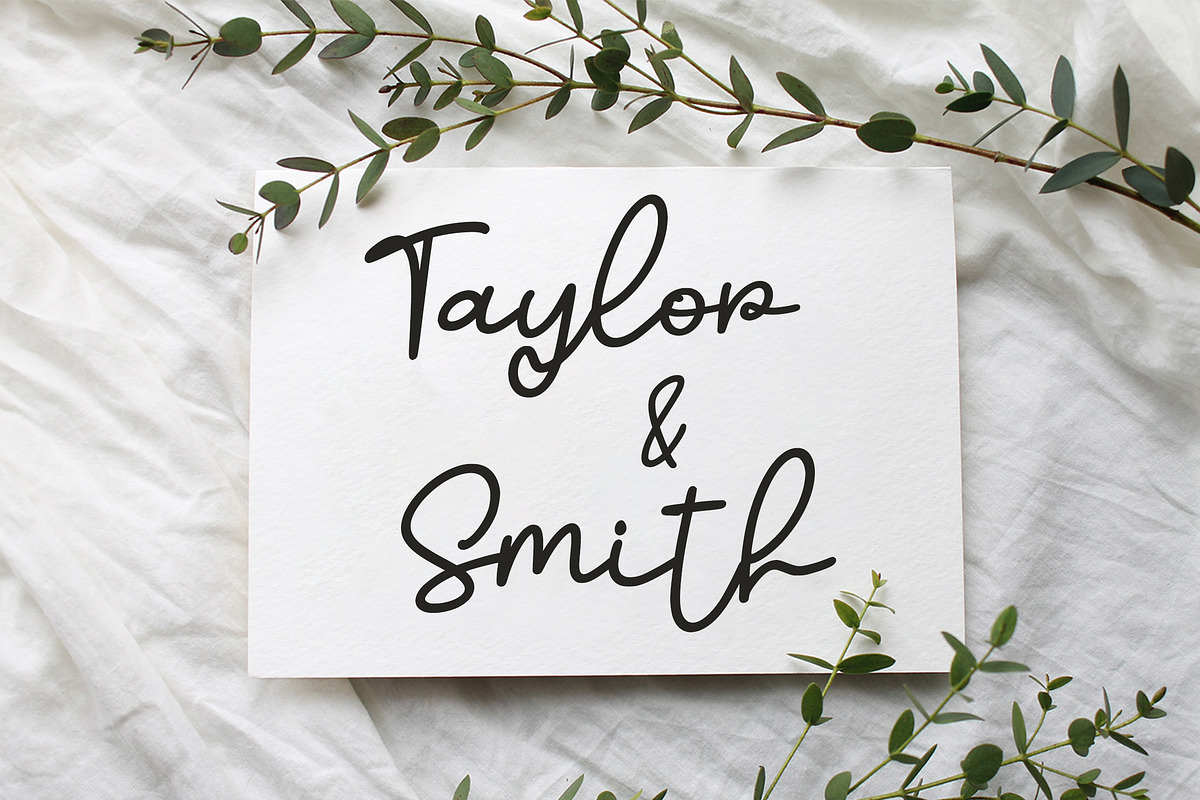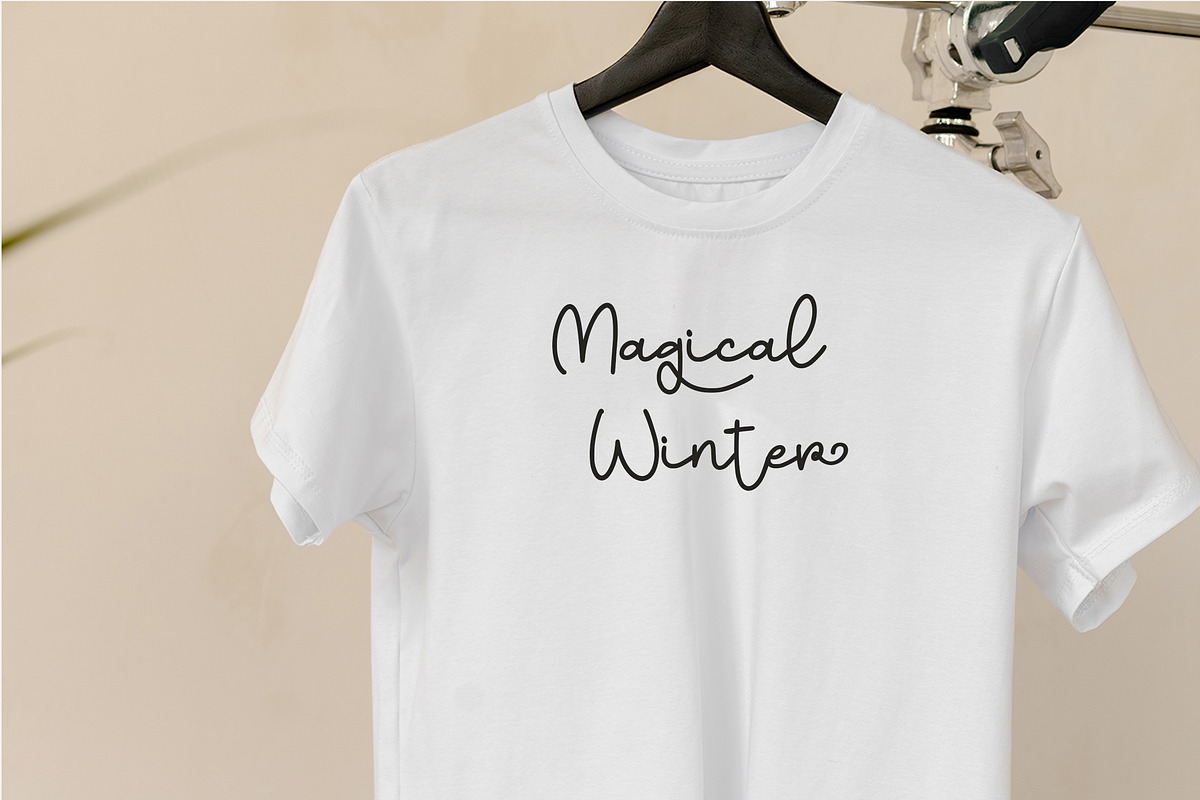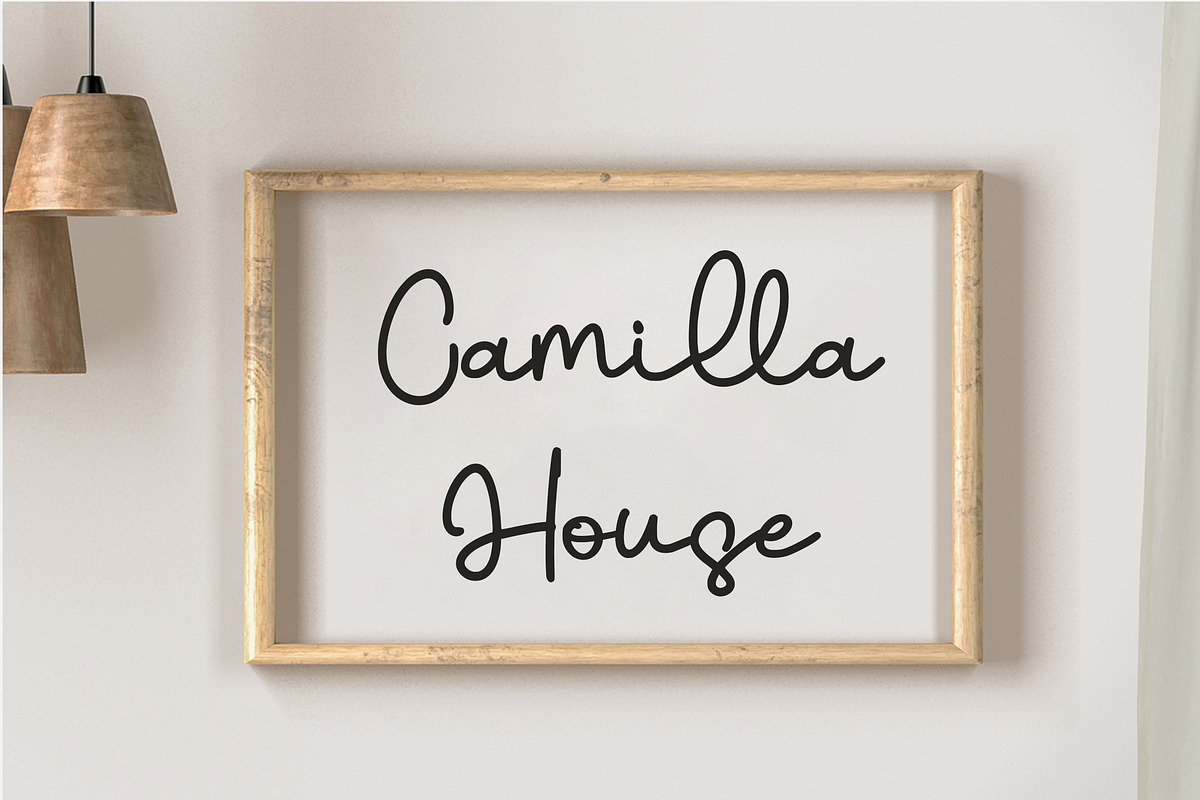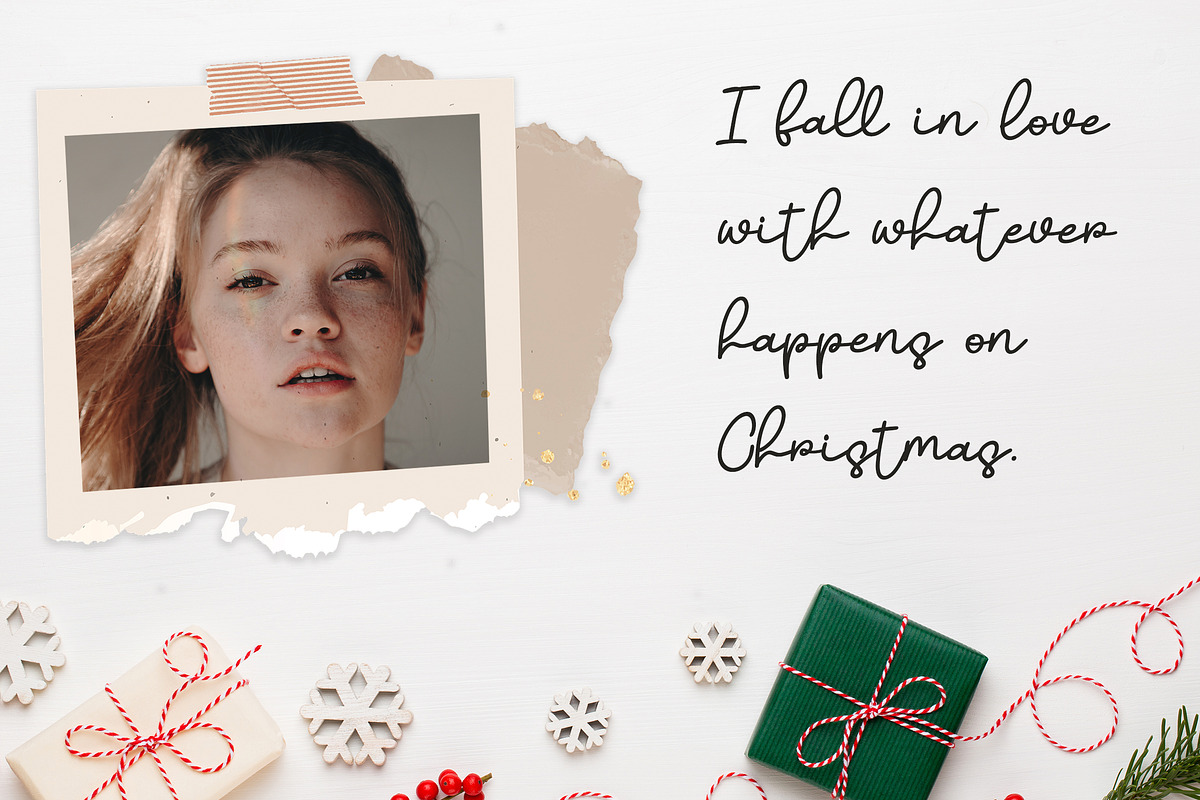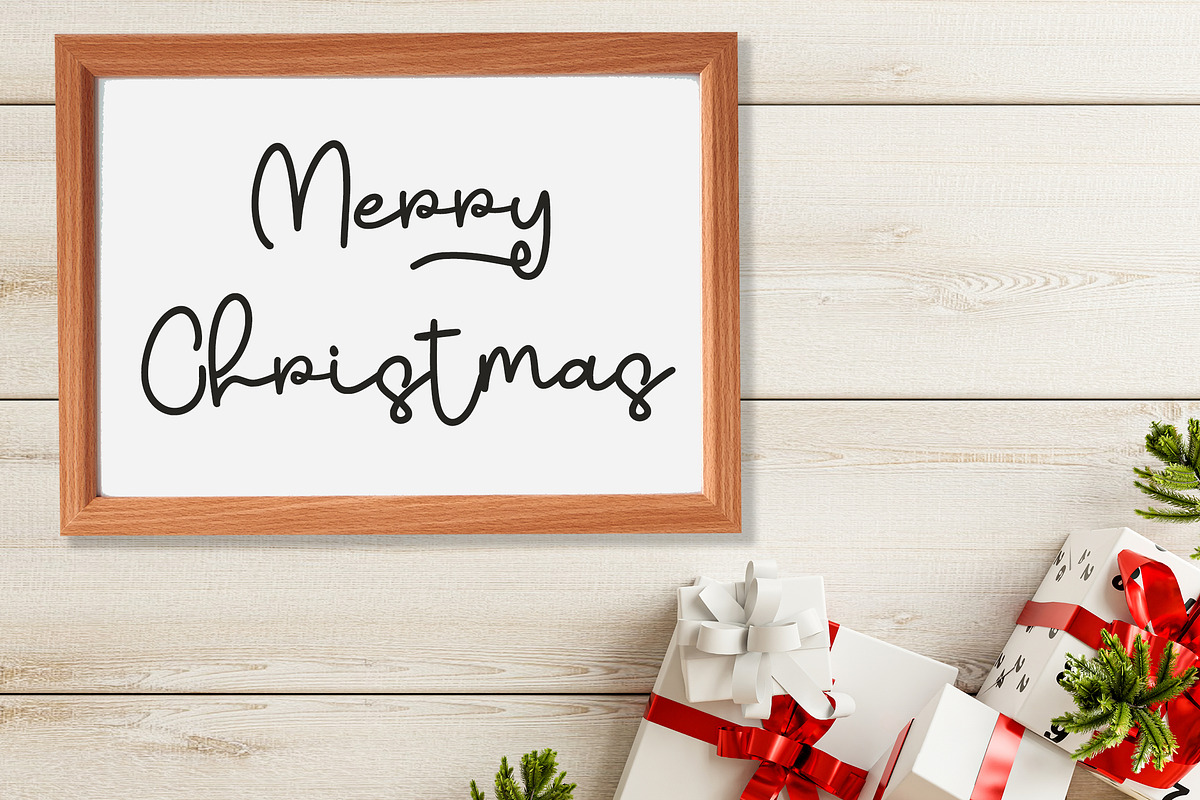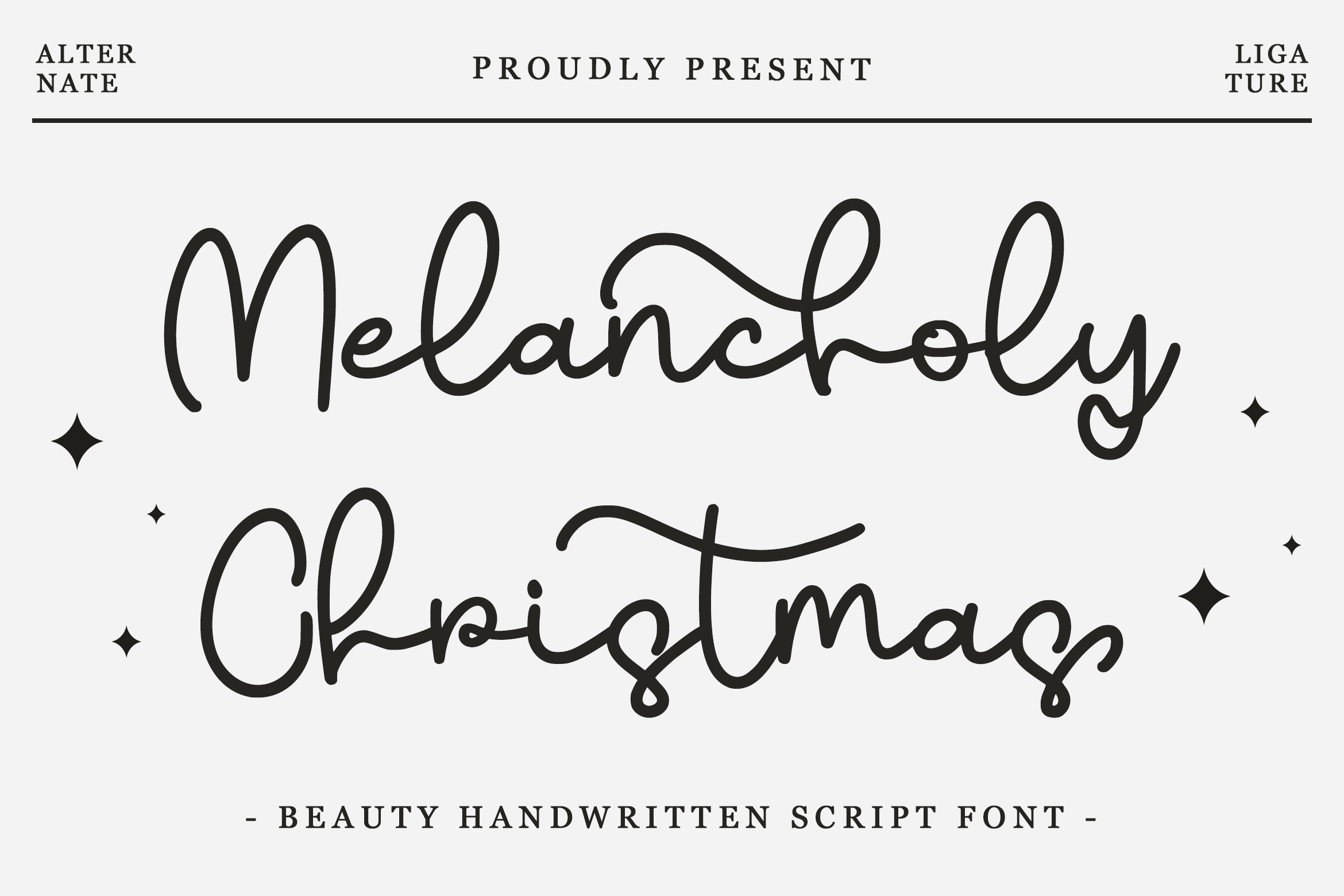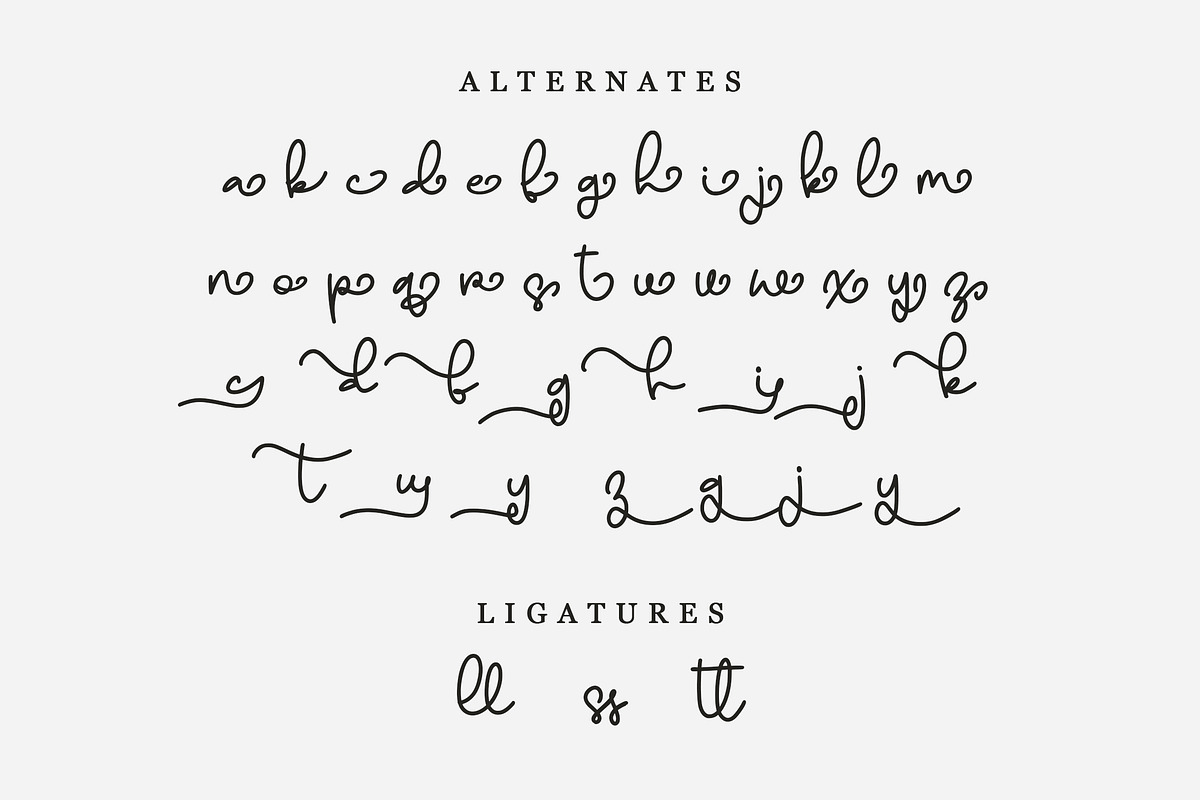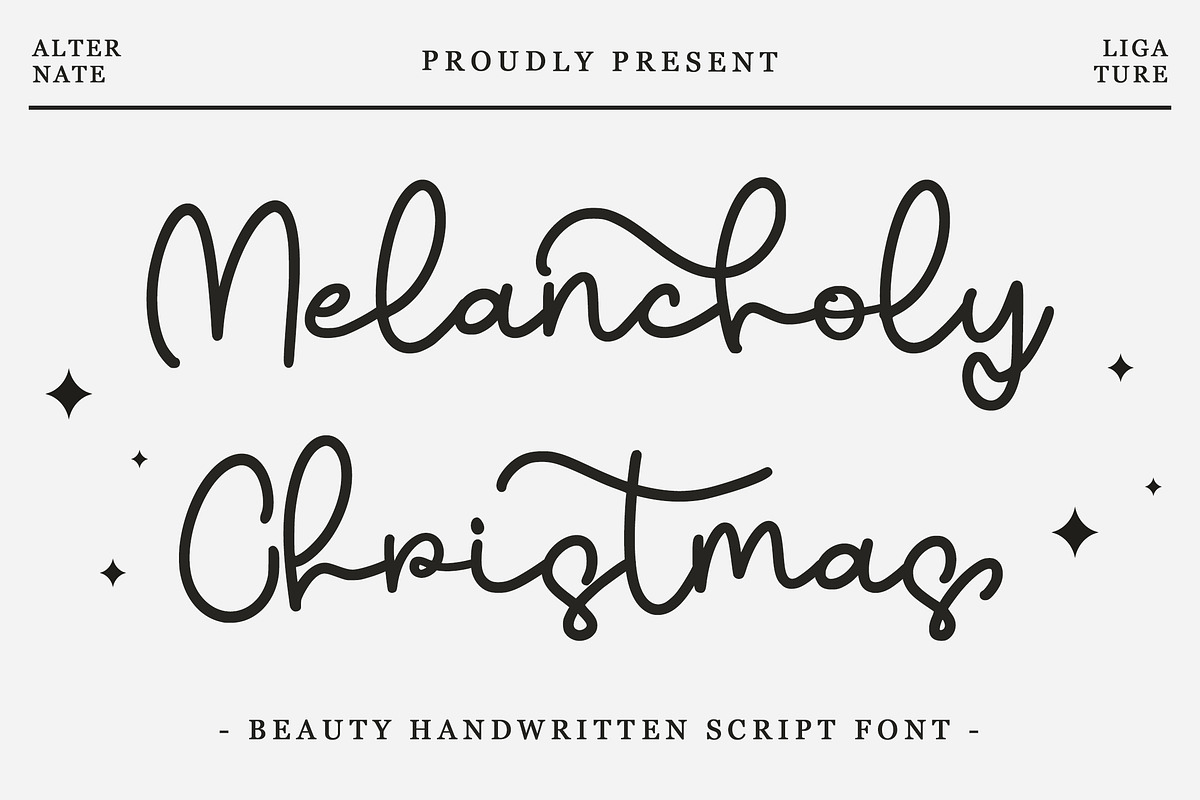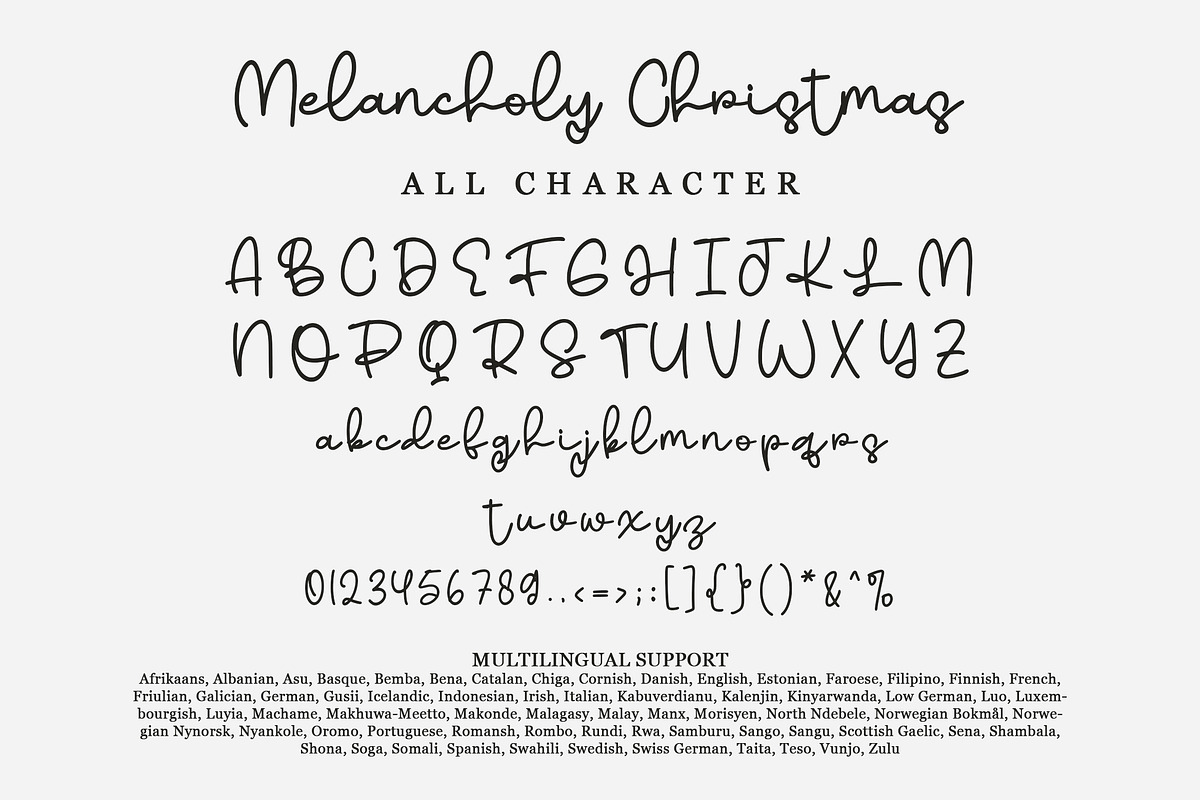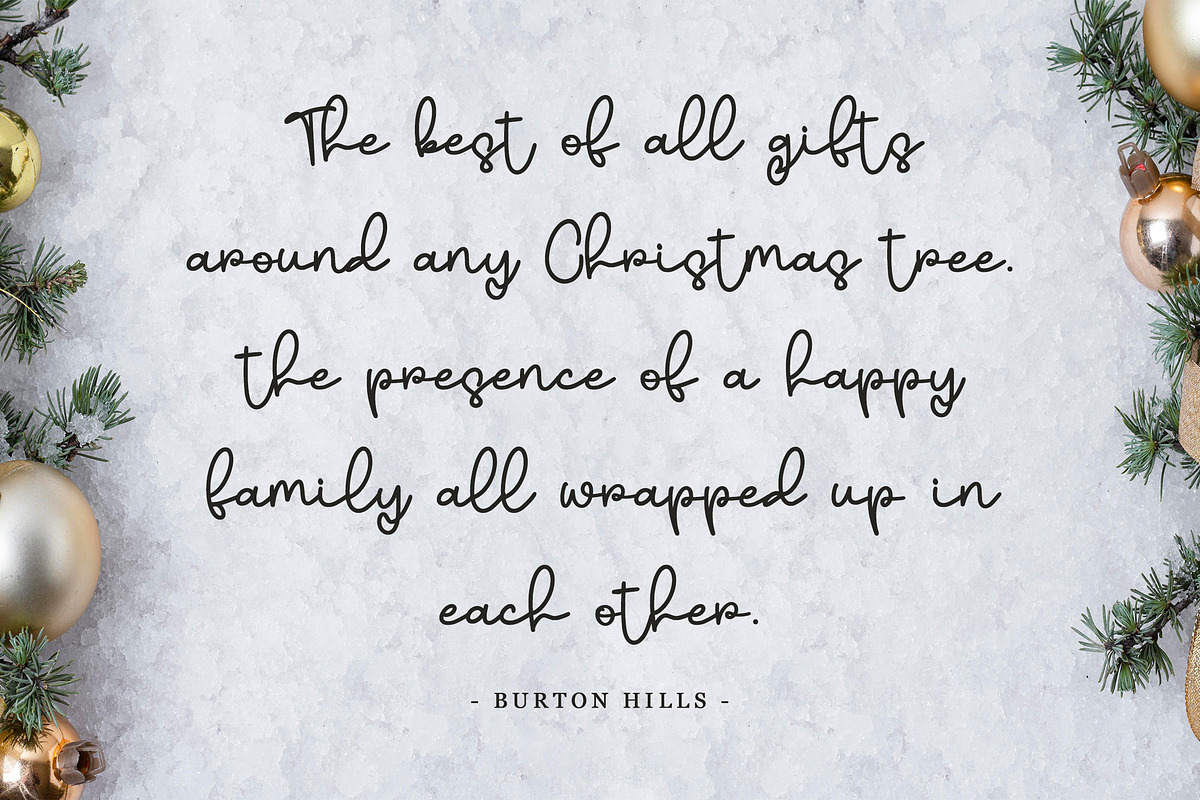
MelancholyChristmas-Handwritten Font
MelancholyChristmas - Handwritten Script Font contains a lowercase, uppercase, symbol, and also supports multi-language. There’s a lot of ligature in this font. MelancholyChristmas - Handwritten Script Font also comes with ligatures, stylistic alternates and many more. this font suitable for fashion, branding, catalog and other design that you want.